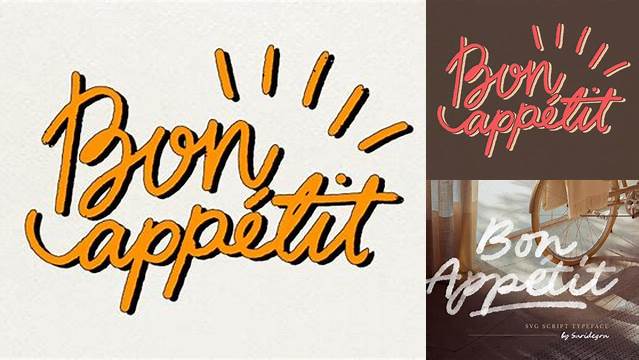
Bon Appetit Font Free: Download & Design Guide
Hey everyone! Are you ready to dive into the world of typography and explore a font that's as inviting as a freshly baked croissant? Today, we're going to uncover the Bon Appetit Font Free, a delightful typeface perfect for adding a touch of culinary charm to your designs. Whether you're a seasoned graphic designer, a food blogger, or simply someone who loves a good-looking font, this guide is for you. We'll explore everything from where to find this gem for free, to how to use it effectively, and even some creative ideas to get your design juices flowing. So, grab your favorite beverage, settle in, and let's get started on this flavorful journey!
3. Design Inspiration: Creative Ways to Use the Bon Appetit Font Free
Let’s get creative! Once you've got the Bon Appetit Font Free downloaded and installed, the real fun begins. This font is all about culinary vibes, so let’s brainstorm some awesome design ideas to get you inspired. First off, use it for food blogs and websites. The font is perfect for creating an inviting and delicious look. Use it for headings, subheadings, and even body text to enhance the overall feel. You could also use it for restaurant menus. The font is perfect for creating visually appealing menus that make dishes look irresistible. Use it for the restaurant name, dish descriptions, and prices. Then, make awesome food photography. Pair it with your food photos to create visually stunning social media posts. Use the font to add text overlays, captions, and branding elements that enhance your photos and attract more followers. You could also use it for recipe cards. If you're a recipe developer, the font is perfect for creating beautiful and easy-to-read recipe cards. Use it for the recipe title, ingredients, and instructions. Do you create invitations and event flyers? The font is perfect for creating invitations to cooking classes, food festivals, and other culinary events. Use it for event details, RSVP information, and the event theme. Also, create food-related social media graphics. Use the font to create engaging graphics for Instagram, Facebook, and other social media platforms. Use it for quotes, promotions, and other content. Create food packaging and branding. If you're in the food business, the font is perfect for designing packaging labels, branding materials, and product descriptions. This font will definitely elevate any design related to food! The possibilities are endless, and the Bon Appetit Font Free is your secret ingredient to creating mouthwatering designs. So, let your creativity flow and explore all the delicious possibilities!
3.1. Applying the Bon Appetit Font to Food Blog Designs
Alright, food bloggers, let's talk! The Bon Appetit Font is a game-changer when it comes to designing your food blog. Here’s how to make it work. First, use it in your logo and branding. Your logo is the face of your blog, so it must make a good impression. The Bon Appetit Font adds that inviting touch. Use it for your blog name, tagline, and any other branding elements. Create inviting headings and subheadings. Catchy headlines will grab your readers' attention. The font is perfect for creating headings that draw readers in and entice them to read your recipes. Use it for recipe titles, ingredient lists, and step-by-step instructions. Elevate your website navigation. Make your website's navigation easy and fun to use. Use the font for your menu items, categories, and search bar labels. Your website design needs to be attractive. Create engaging social media graphics. Use the font for creating eye-catching social media posts to promote your recipes and blog content. Use it to add text overlays to your photos, create quote graphics, and highlight key ingredients. You should also consider using the font in your recipe cards. Recipe cards should be easy to read and look good. The font is perfect for creating recipe cards that are visually appealing and easy to follow. Use it for recipe titles, ingredient lists, and instructions. Next, make your blog design consistent. Use the Bon Appetit Font consistently across your blog to create a cohesive and professional look. This consistency will reinforce your brand identity. Combine it with complementary fonts. Pair the font with other fonts that complement its style. Use a clean, sans-serif font for body text to ensure readability. Make your font choice accessible. Ensure your font choices are accessible to all users, including those with visual impairments. Use sufficient contrast, avoid small font sizes, and ensure your text is easy to read. To make your design even better, consider using the font in different weights and styles. Vary the font size and color to create visual interest. But, don’t overdo it! Test your design and get feedback from others. The Bon Appetit Font can make your food blog look amazing. These tips will help you create a mouthwatering experience for your readers.
5.3. Best Practices for Using the Bon Appetit Font in Various Design Contexts
Alright, let’s look at the best practices for using the Bon Appetit Font in different design contexts. This font can be really versatile, but it's important to know how to make it work best in various situations. In food blogs and websites, use it for headlines, subheadings, and the menu bar. In restaurant menus, use it for the restaurant name, dish descriptions, and pricing. For social media graphics, use it for text overlays on photos, and for quotes and captions. Make sure the font is easy to read. When using the font, make sure the font is easy to read. You may want to consider using a cleaner font with more simple letterforms. Consider using short blocks of text. The font is more appropriate for headlines or short blocks of text. Avoid using it for large blocks of text. The font is not designed for extensive reading. Be sure to consider your target audience. Make sure your target audience can read and understand the font. Be consistent! Use the Bon Appetit Font consistently. Integrate the font into your branding. Use it for logos, website designs, and packaging. Test your design! Get feedback and ask others to review your work. By following these best practices, you can use the Bon Appetit Font effectively in any design project. With a little practice, you can master the art of typography and create beautiful designs.